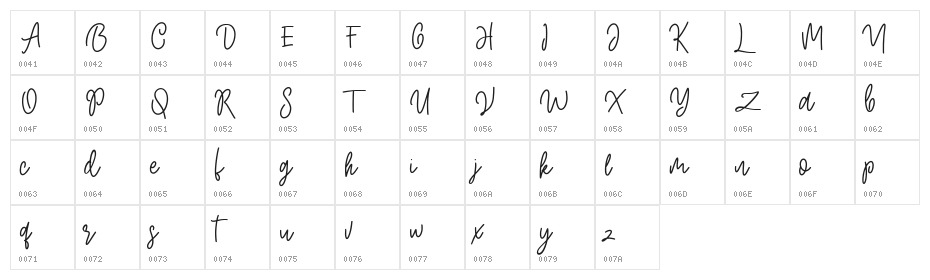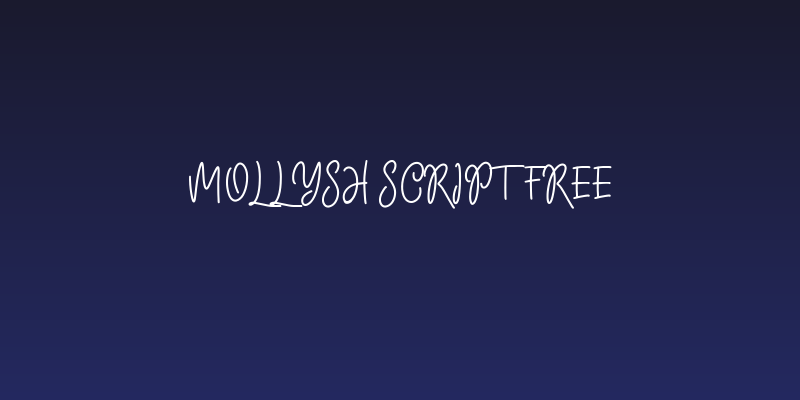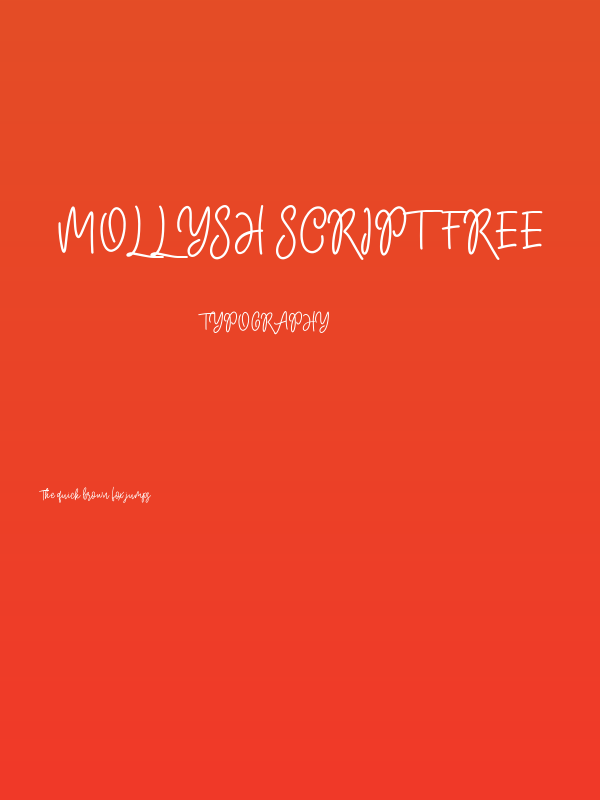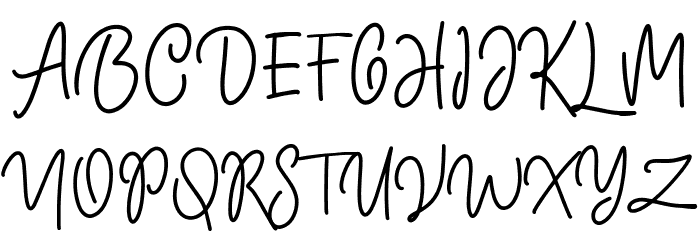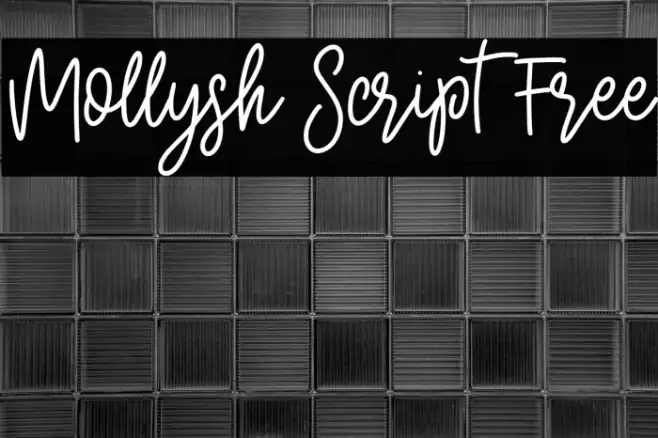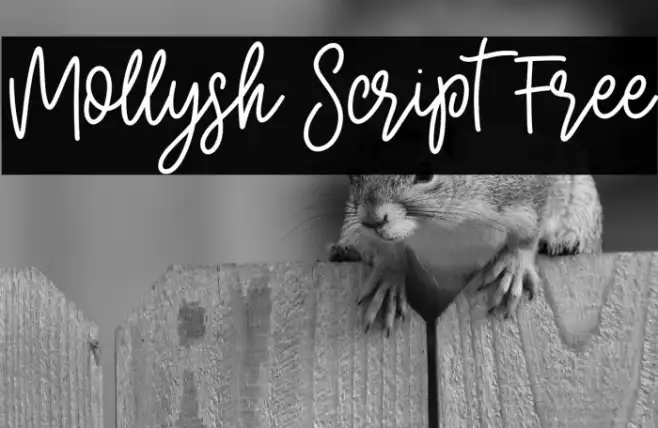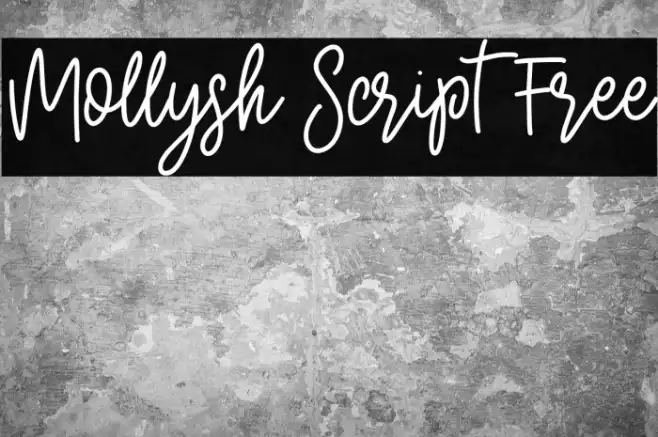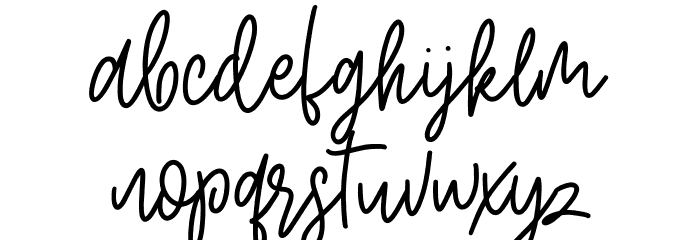
Mollysh Script Free Font
Mollysh Script Free Description
This font features a lively and flowing script style, characterized by its elegant and smooth curves. The uppercase letters exhibit a playful yet sophisticated flair, with each character seamlessly connecting to the next. The lowercase letters maintain a consistent rhythm, enhancing readability while preserving the font's artistic essence. The strokes are moderately thick, providing a balanced contrast that adds to its legibility. This script font is ideal for projects that require a personal touch, such as invitations, greeting cards, and branding materials. Its dynamic and expressive nature makes it suitable for both formal and informal contexts.
| Proposed Projects | Ideal for invitations, greeting cards, branding materials, and any project needing a personal touch. |